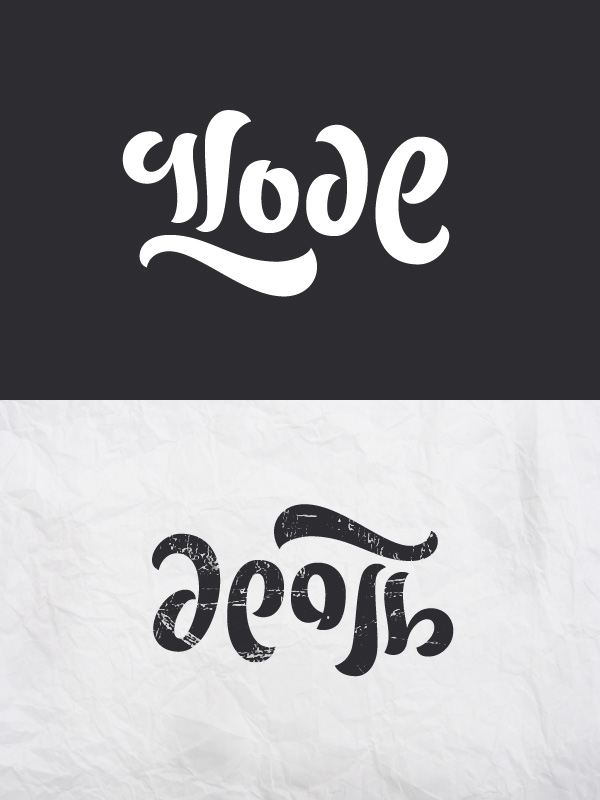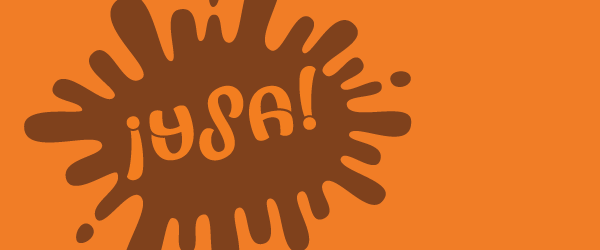
Ambigrams (New!)
Ambigram is a calligraphic or typographic symbol, which can be read twice (usually rotating 180 degrees). I like to look for rhymes and consistency in letters. Above you can see the words "Love/death", "Festa" and "УРА!" (hurrah!).